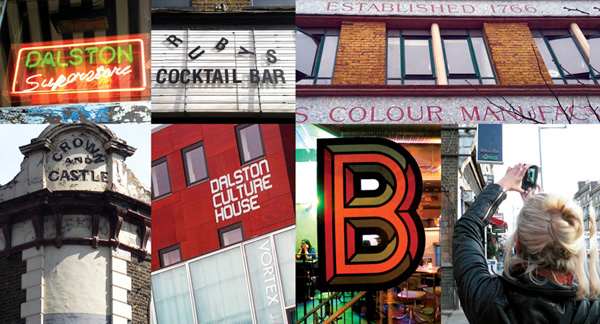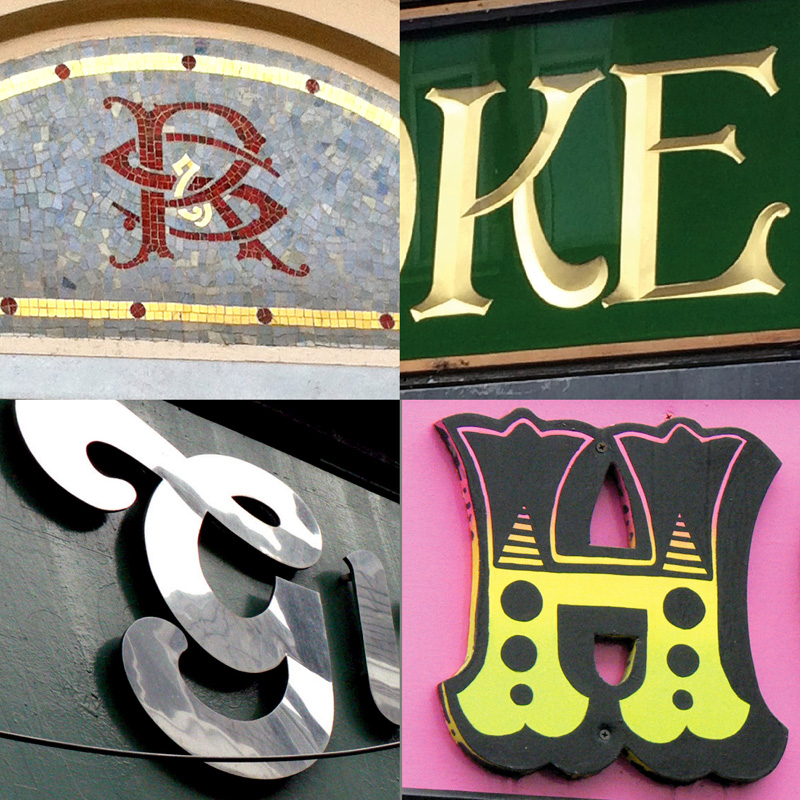
Discover the messages hidden in London’s street signs
London Type Safari & pub quiz
Route 1: Hidden treasures
Beautiful signs from the past are revealed when a building changes ownership, but they might not be visible for long.
London Type Safari & pub quiz
Route 2: Crafted by hand
Signs are the voices of the high street, from DIY lettering, secret in-the-know symbols, to the craft of the sign writer.
Routes 1 and 2 can be enjoyed as separate, stand-alone events.
• Compare East London with your local neighbourhood
• Discover clues to spot quintessential businesses from the past
• Explore ornate signs previously hidden from view
• Find out whether you judge a pub by its sign
• Revisit iconic Dalston signs that have since disappeared
Sign spotting pub quiz
This is a fun and informal session that’s suitable for everybody, no design knowledge is needed. There will be a sign spotting quiz during the tour, can you spot all the answers? At the end of the hour-long tour, you’re invited to join Sarah for a drink in a virtual local establishment as she goes through the answers. Play along with your family and friends to find out who is the champion sign spotter?